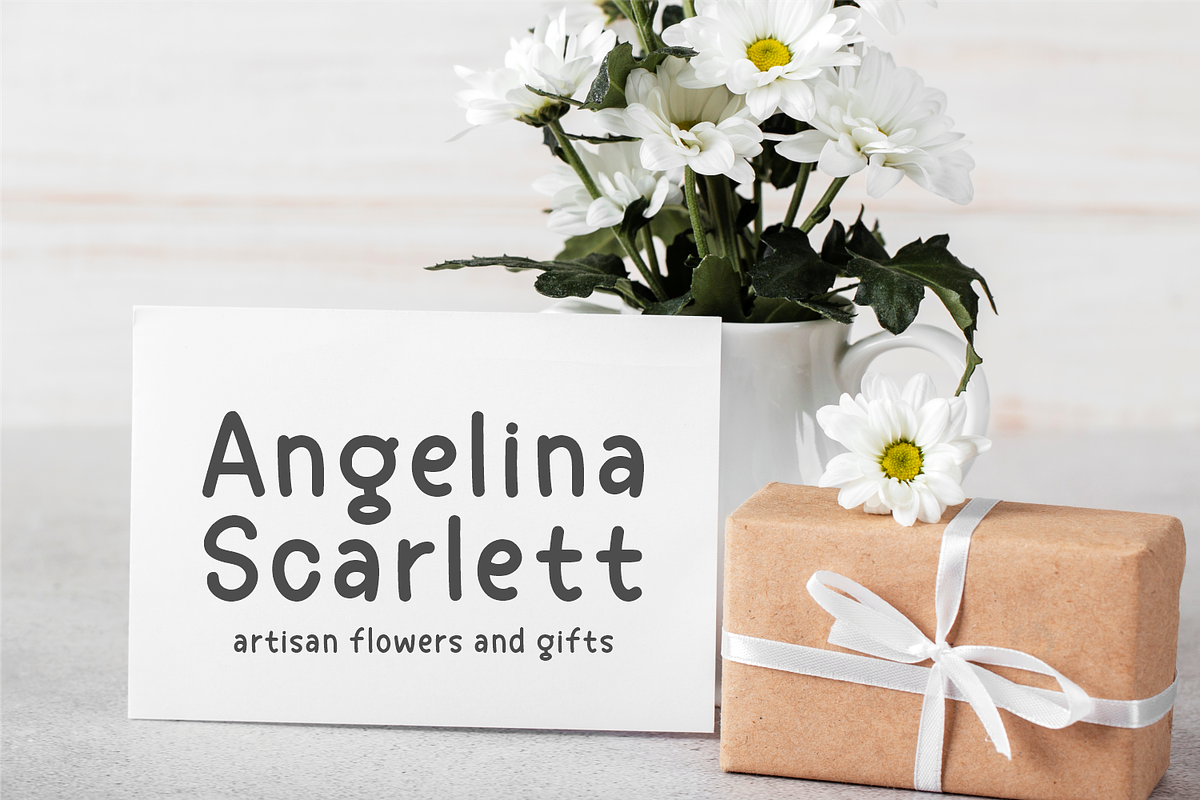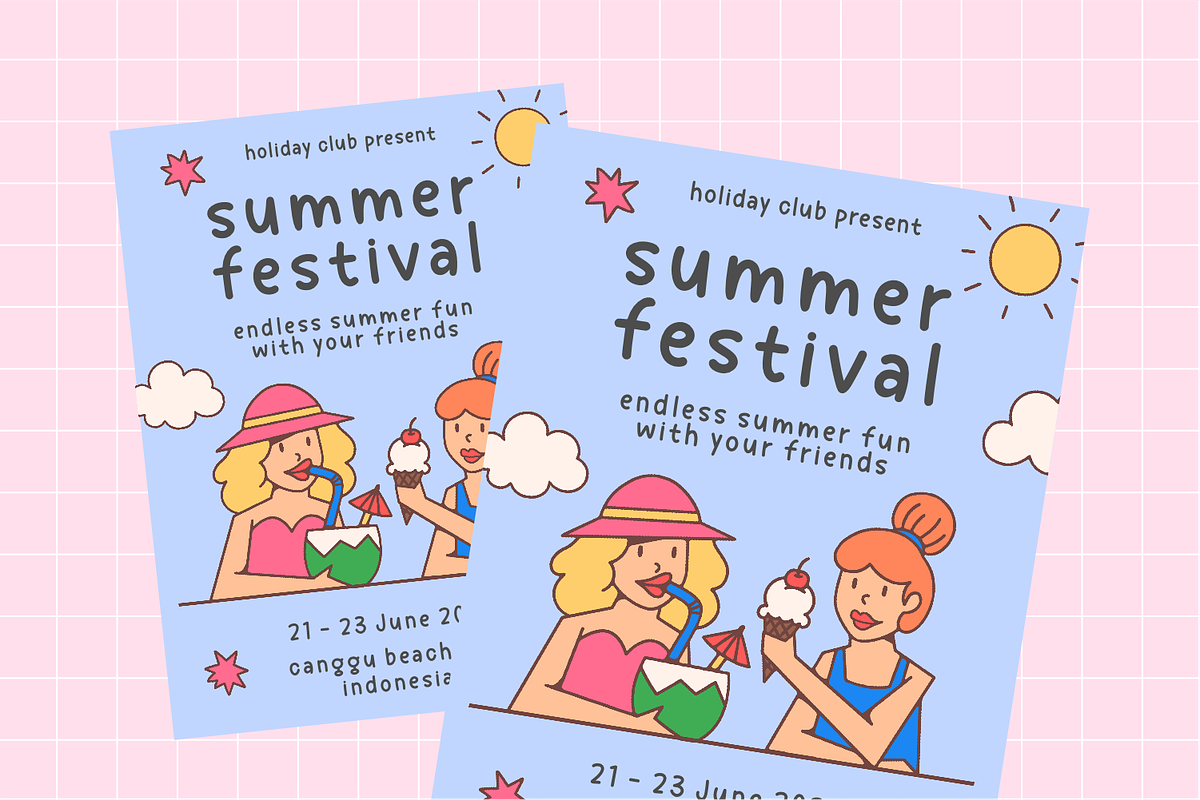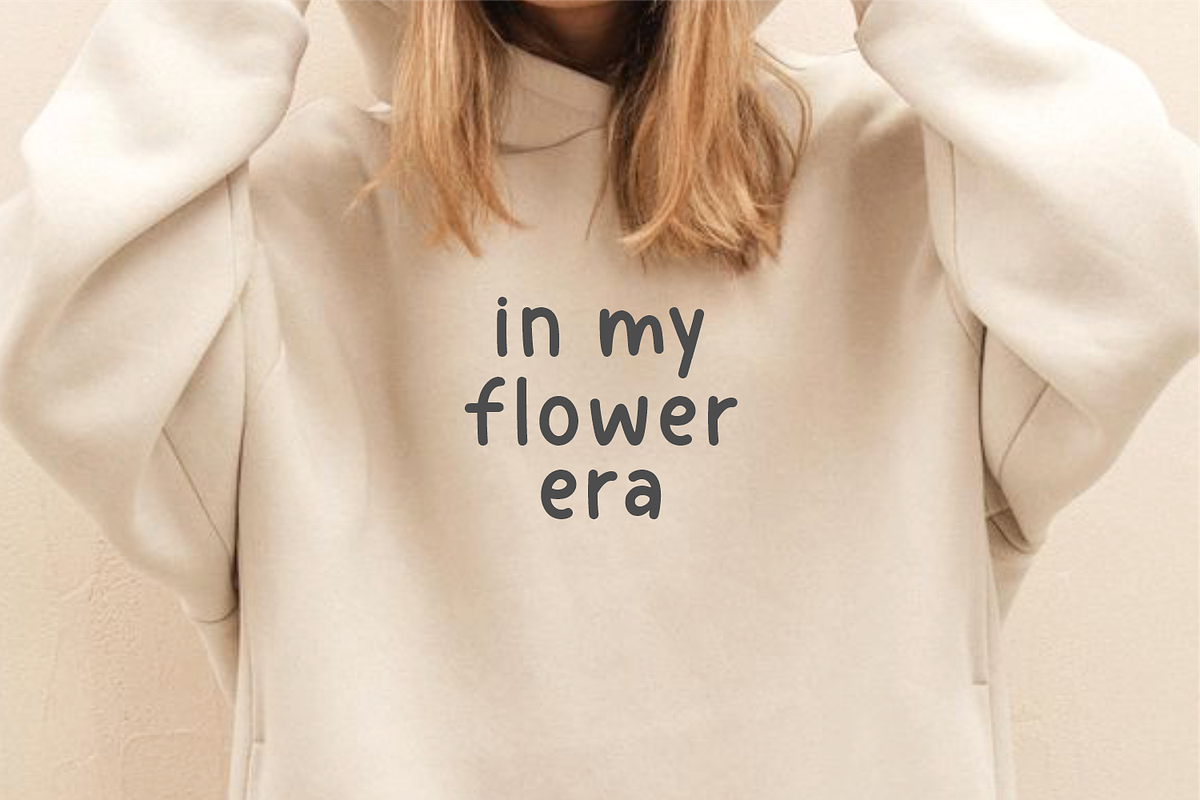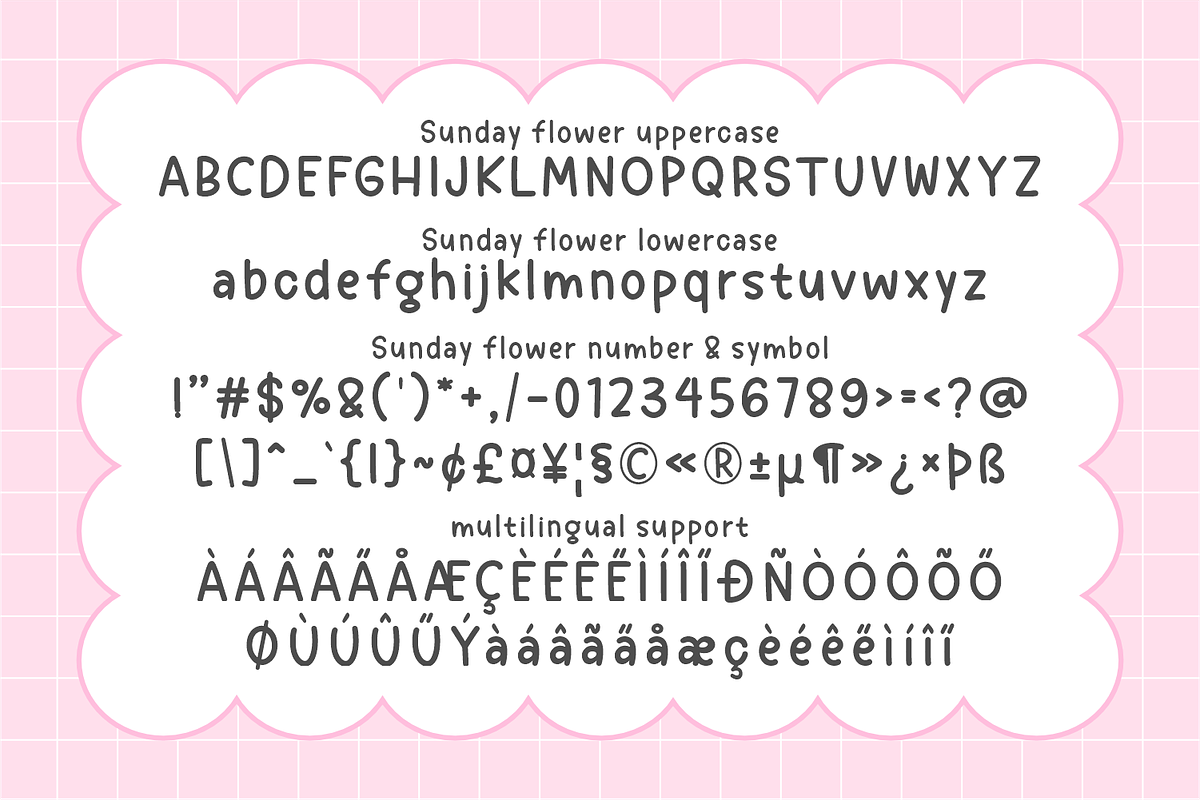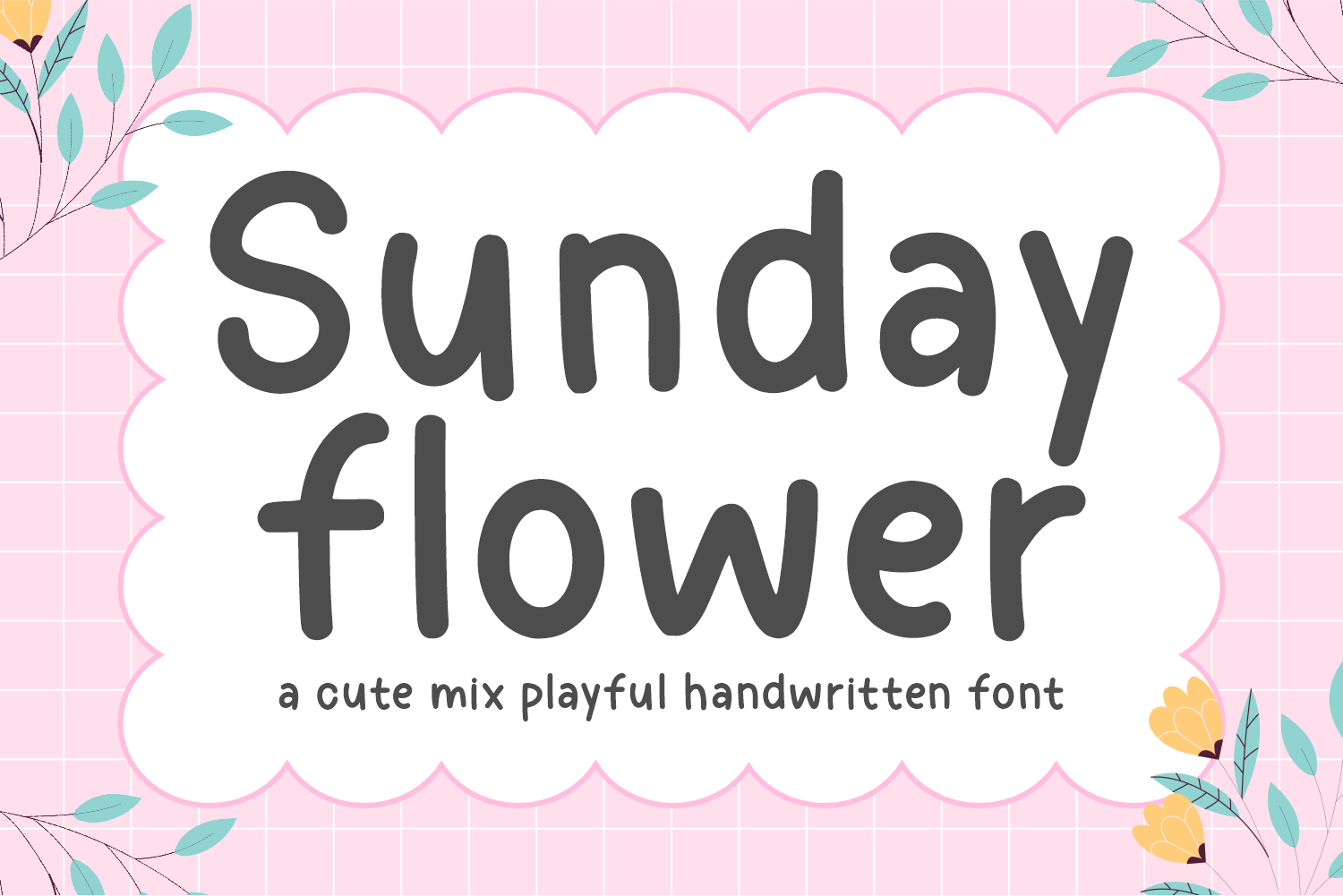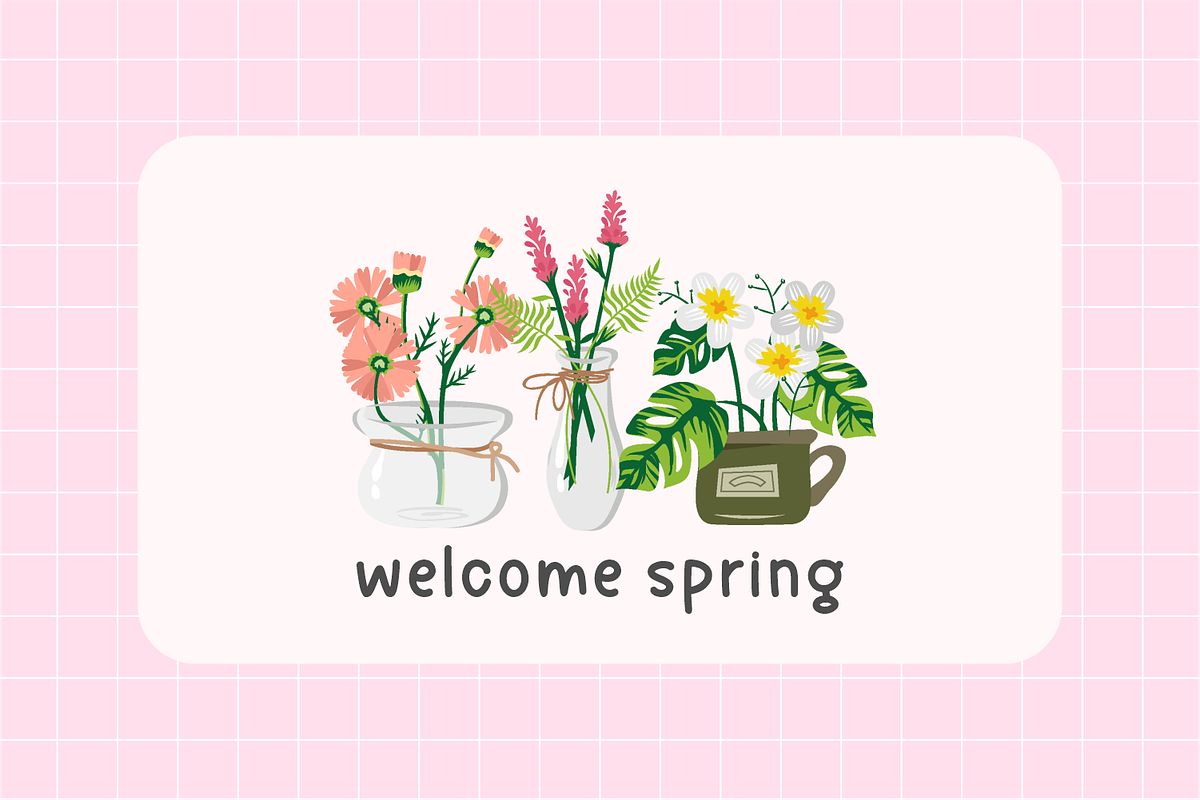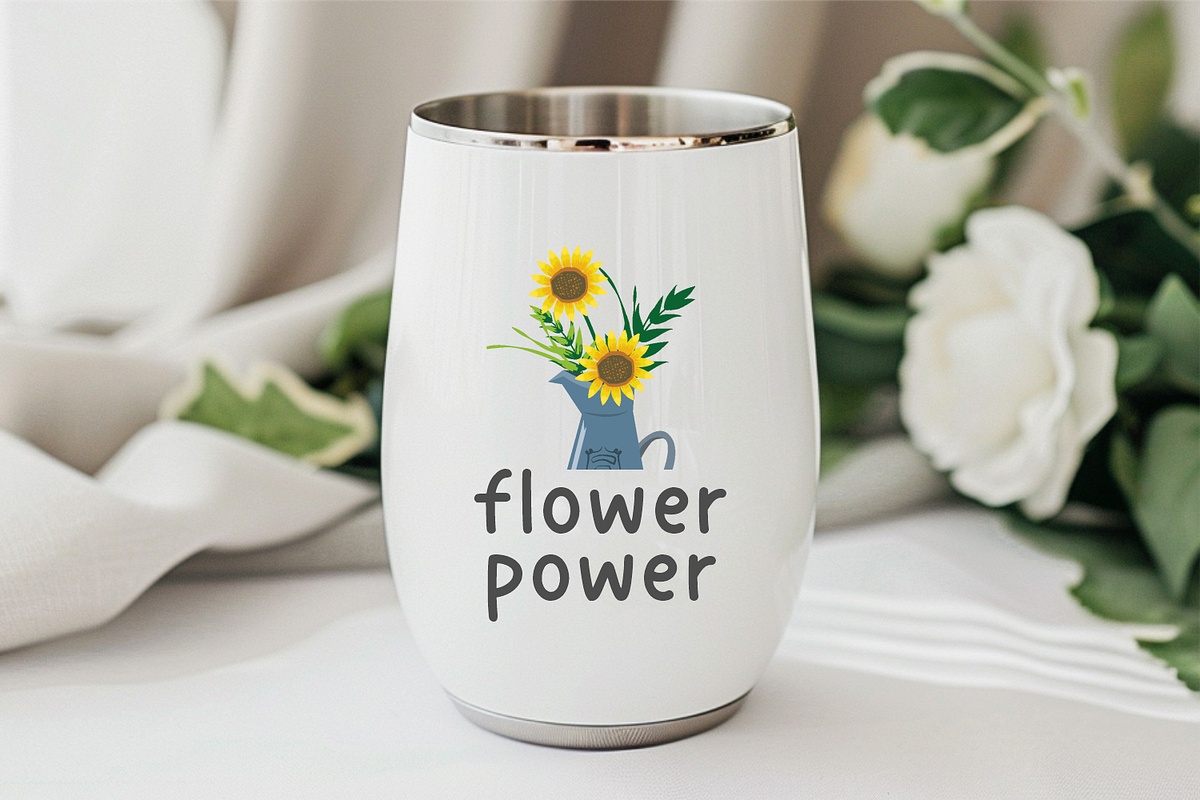
Sunday Flower - Playful Font
Immerse yourself in the whimsical charm of Sunday Flower, a delightful handwritten font. This jovial and exuberant typeface exudes joy, enlivening every creation with its cheerfully buoyant essence, making it perfect for spring and summer designs. Not limited to any particular occasion, Sunday Flower is versatile and roams freely from everyday notations to poster designs, t-shirt embellishments, captivating logos, special events, thoughtful blogs, and more. For those proficient in the art of sticker and sublim crafts, Sunday Flower promises a flawless partnership with cameo machines and sublimation presses, enhancing your unique creations with its endlessly inviting appeal. Bask in the artful simplicity of Sunday Flower, because every day should feel like a sunny Sunday.